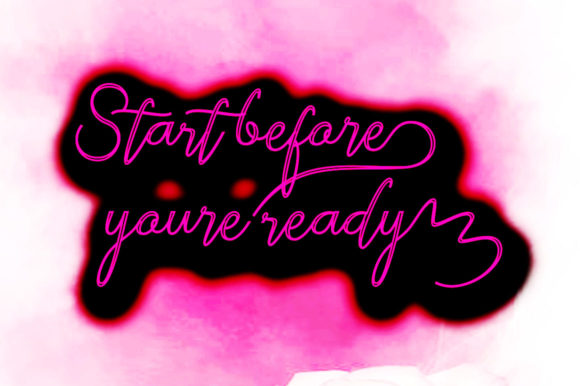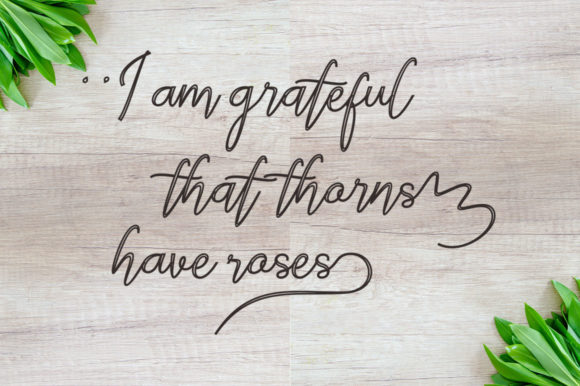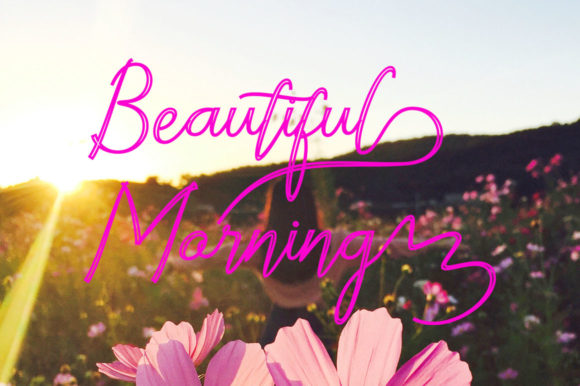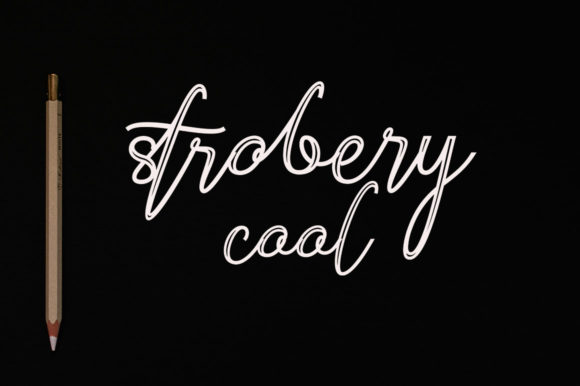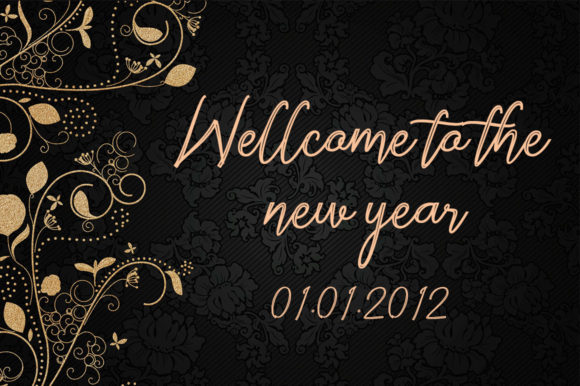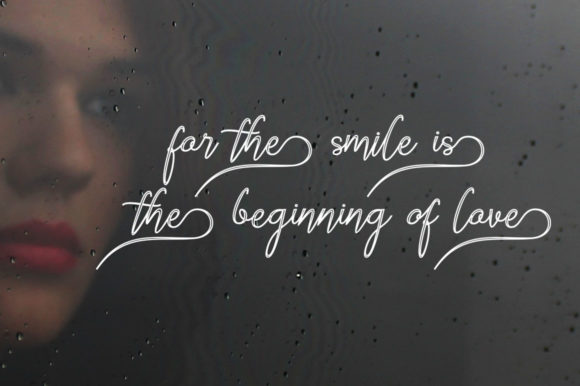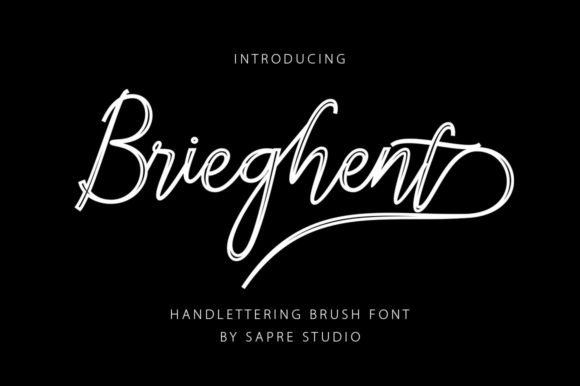
Brieghent Font: Elevate Your Designs with Elegance
The Brieghent font is an exquisite addition to the world of typography, offering a touch of sophistication and luxury to various design projects. As an elegant handwritten font, it has become a popular choice among designers and crafters looking to add a personal and high-end feel to their creations.
The Characteristics of Brieghent Font
The Brieghent font boasts a unique blend of classic and modern elements, making it versatile and suitable for a wide range of applications. Its elegant and fluid strokes evoke a sense of refinement, perfect for designs that require a sophisticated look. The font’s handwritten nature adds a touch of warmth and personality, making it ideal for projects where a personal connection is desired.
Ideal Uses for Brieghent Font
So, where can you use the Brieghent font to elevate your designs? Here are some popular applications:
- Wedding Invitations: Add a touch of luxury and romance to your wedding invitations, save-the-date cards, and other wedding-related stationery.
- Thank You Cards: Express gratitude in style with beautifully designed thank you cards that feature the elegant Brieghent font.
- Quotes and Typography: Use Brieghent to create stunning typographic quotes, posters, and prints that showcase your favorite phrases or lyrics.
- Branding and Packaging: Incorporate the Brieghent font into your brand identity to convey a sense of sophistication and high-end quality.
- Stationery and Greeting Cards: Add a touch of elegance to your stationery, greeting cards, and other paper crafts with the beautiful Brieghent font.
Why Choose Brieghent Font?
With so many fonts available, what sets Brieghent apart? Here are some compelling reasons to choose Brieghent for your next design project:
- Unique and Elegant: Brieghent offers a distinctive and sophisticated look that will set your designs apart from the rest.
- Versatile: The font’s classic and modern elements make it suitable for a wide range of applications, from traditional to contemporary designs.
- Easy to Read: Despite its elegant nature, Brieghent remains highly legible, ensuring that your message is conveyed clearly and effectively.
- High-Quality: Brieghent is a high-quality font designed to deliver exceptional results in both digital and print formats.
Tips for Using Brieghent Font
To get the most out of the Brieghent font, consider the following tips:
- Pair with Complementary Fonts: Combine Brieghent with clean and simple fonts to create a striking contrast and add visual interest to your designs.
- Experiment with Colors: Brieghent looks stunning in a range of colors, from metallic and pastel shades to rich jewel tones. Don’t be afraid to experiment and find the perfect hue for your design.
- Pay Attention to Spacing: Ensure that your text is properly spaced to maintain the elegant and sophisticated feel of the Brieghent font.
The Brieghent font is an exceptional choice for designers and crafters seeking to add a touch of luxury and sophistication to their creations. With its elegant handwritten style, versatility, and high-quality design, Brieghent is perfect for a wide range of applications, from wedding invitations and stationery to branding and packaging. By incorporating Brieghent into your design projects, you’ll be able to create stunning and memorable designs that leave a lasting impression.